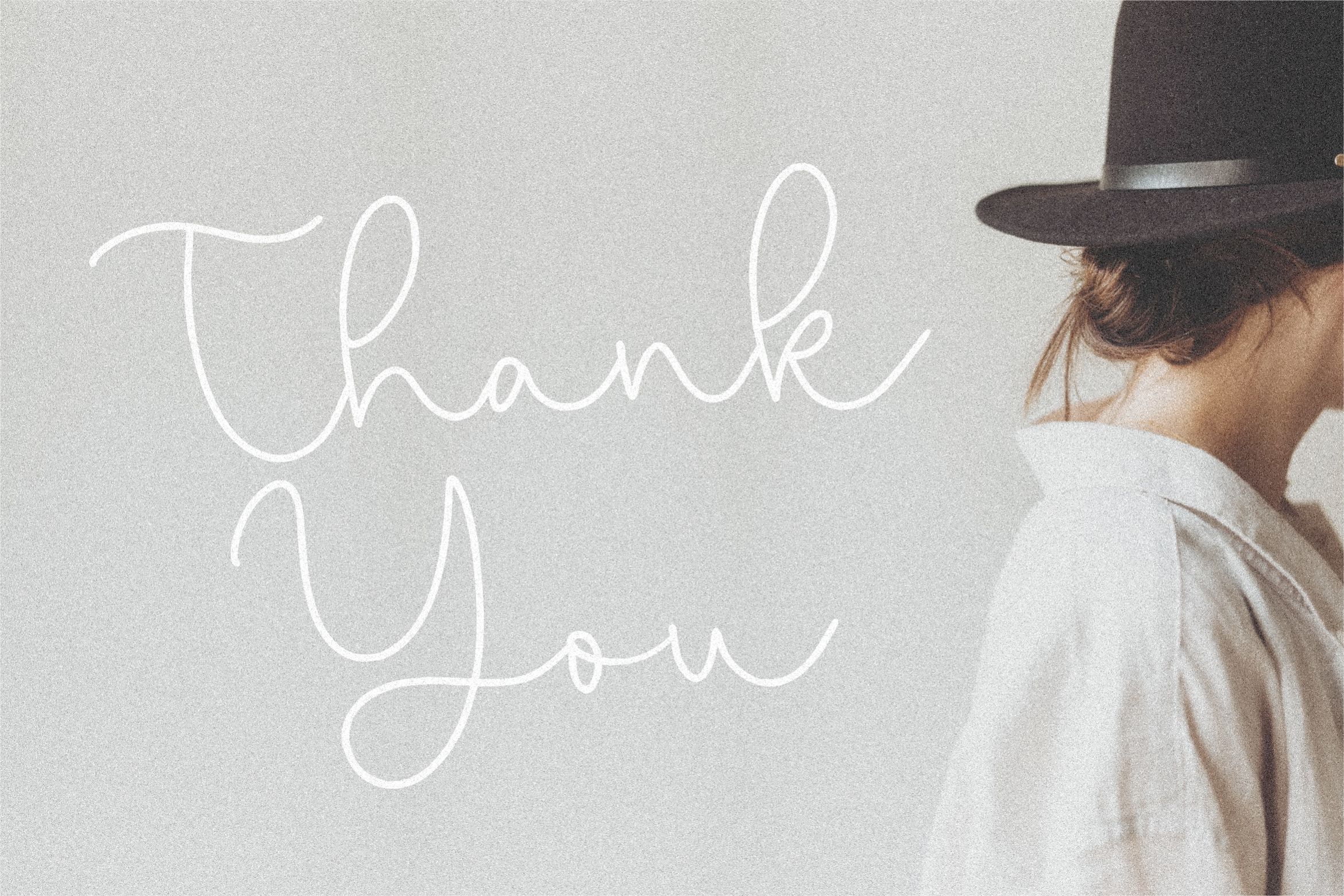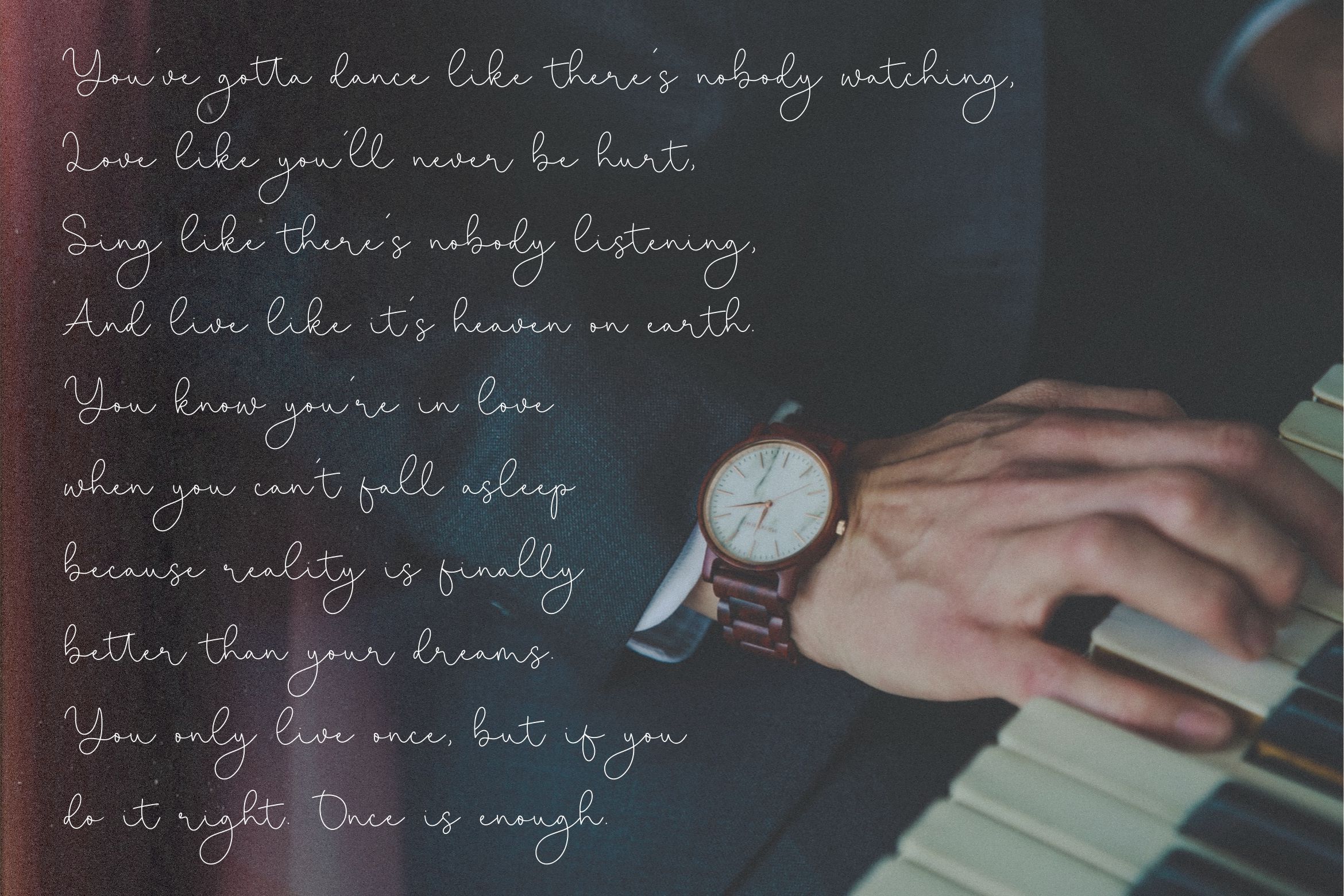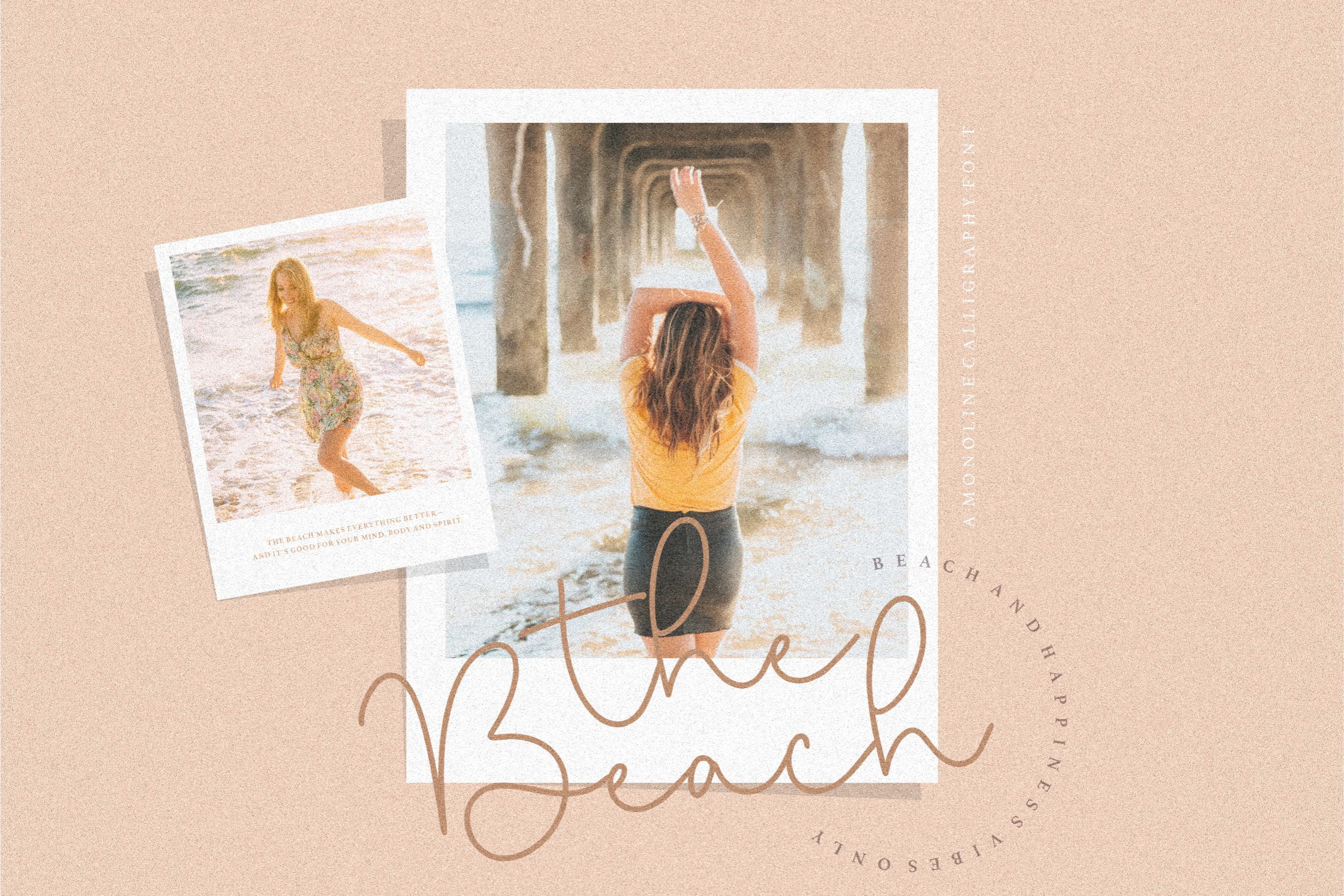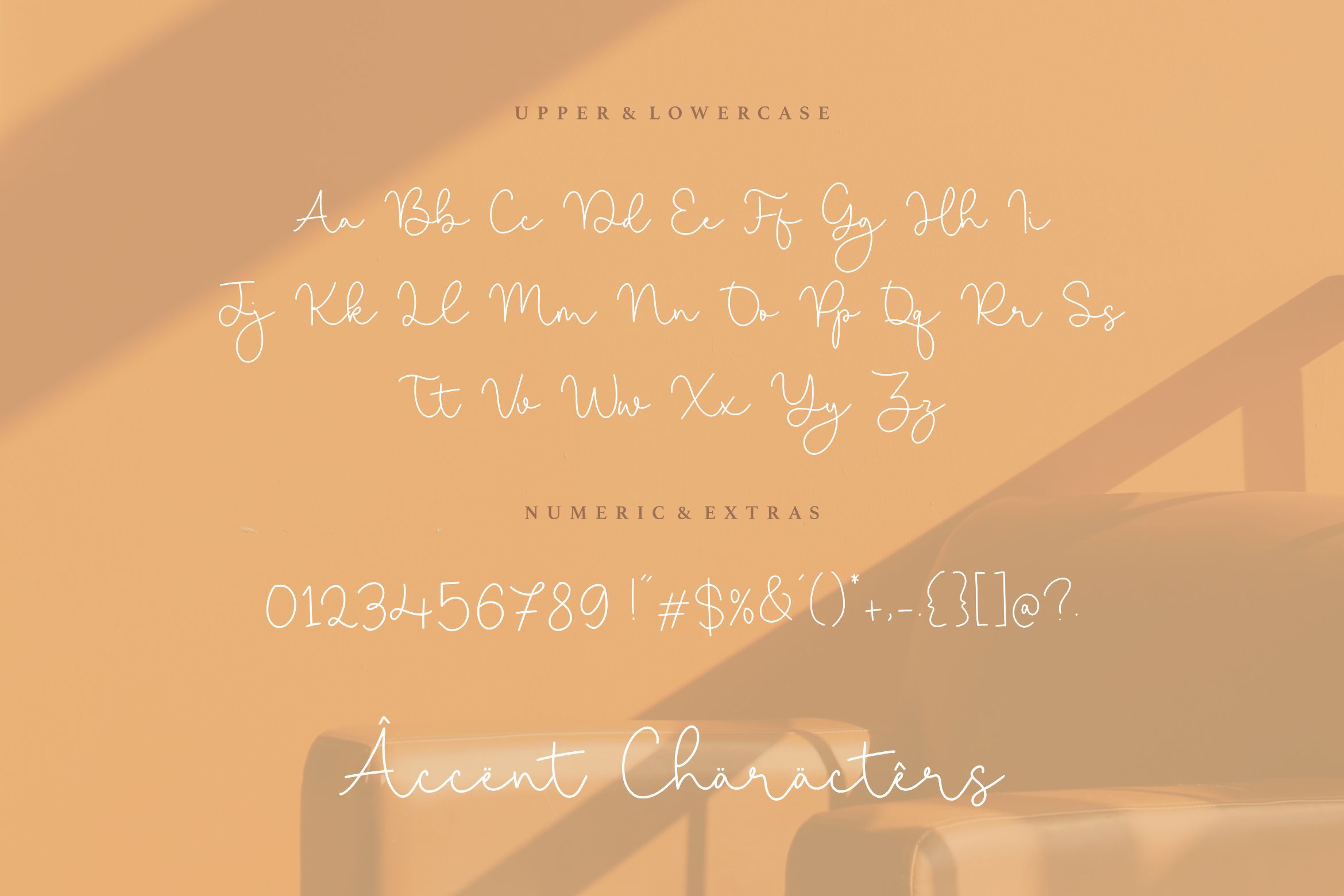
About Miracle Sunrise Monoline Calligraphy Font
Introducing by Letterative Studio : Miracle Sunrise Font Miracle Sunrise is a Monoline Calligraphy Font Miracle Sunrise is a thin and classic handwritten font. Fall in love with its completely different and timeless style and use it to create beautiful designs! This font includes : TTF and OTF Miracle Sunrise also multilingual support Enjoy the font! Feel free to comment or feedback Send me PM or email Thank you!